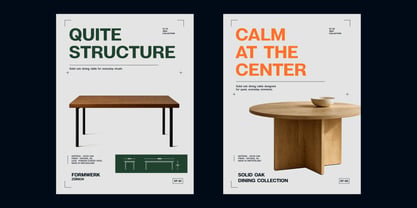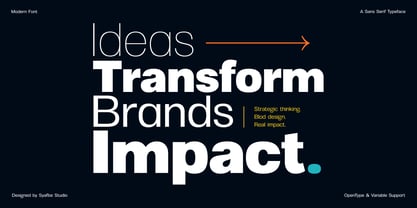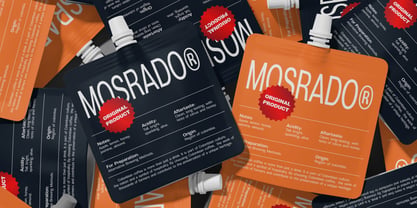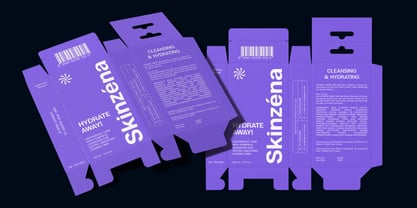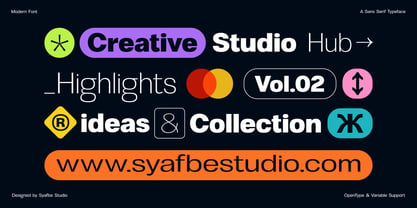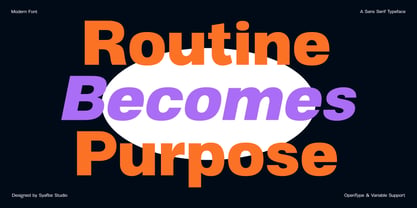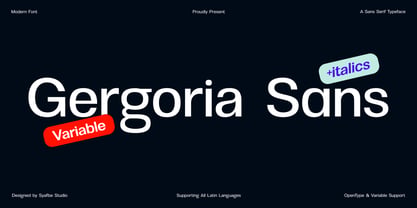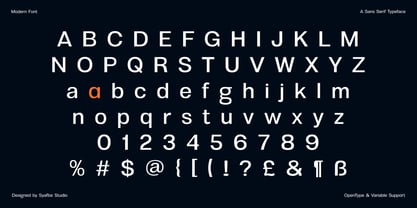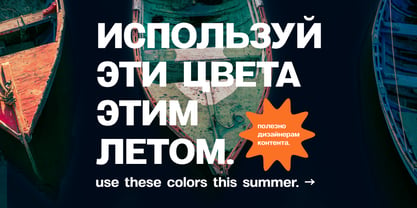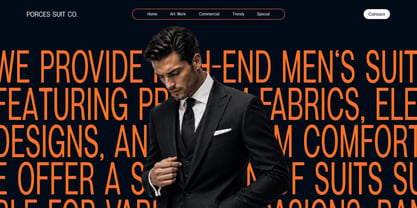
Gergoria Sans
by Syafbe
The Gergoria Sans Font Family was designed by Syafwan Mus and published by Syafbe. Gergoria Sans contains 36 styles and family package options. More about this family
Gergoria Sans®, is a sans serif font by Syafbe Studio that embodies the essence of modern clarity and simplicity, akin to philosopher Marcus Aurelius's expression of the importance of discarding the unnecessary to discover true beauty. Its clean, unadorned letterforms create a calming visual space, pleasing to the eye, and conveying honesty of form in every line—both in print and digitally.
Behind its simplicity, this font holds a flexibility that aligns with Heraclitus's idea of ​​eternal change: it comes in 36 letter styles and dynamic, variable formats. From the thinnest to bold and italics, Gergoria Sans adapts harmoniously without losing its identity, making it the perfect choice for conveying powerful branding messages, logos, and more.